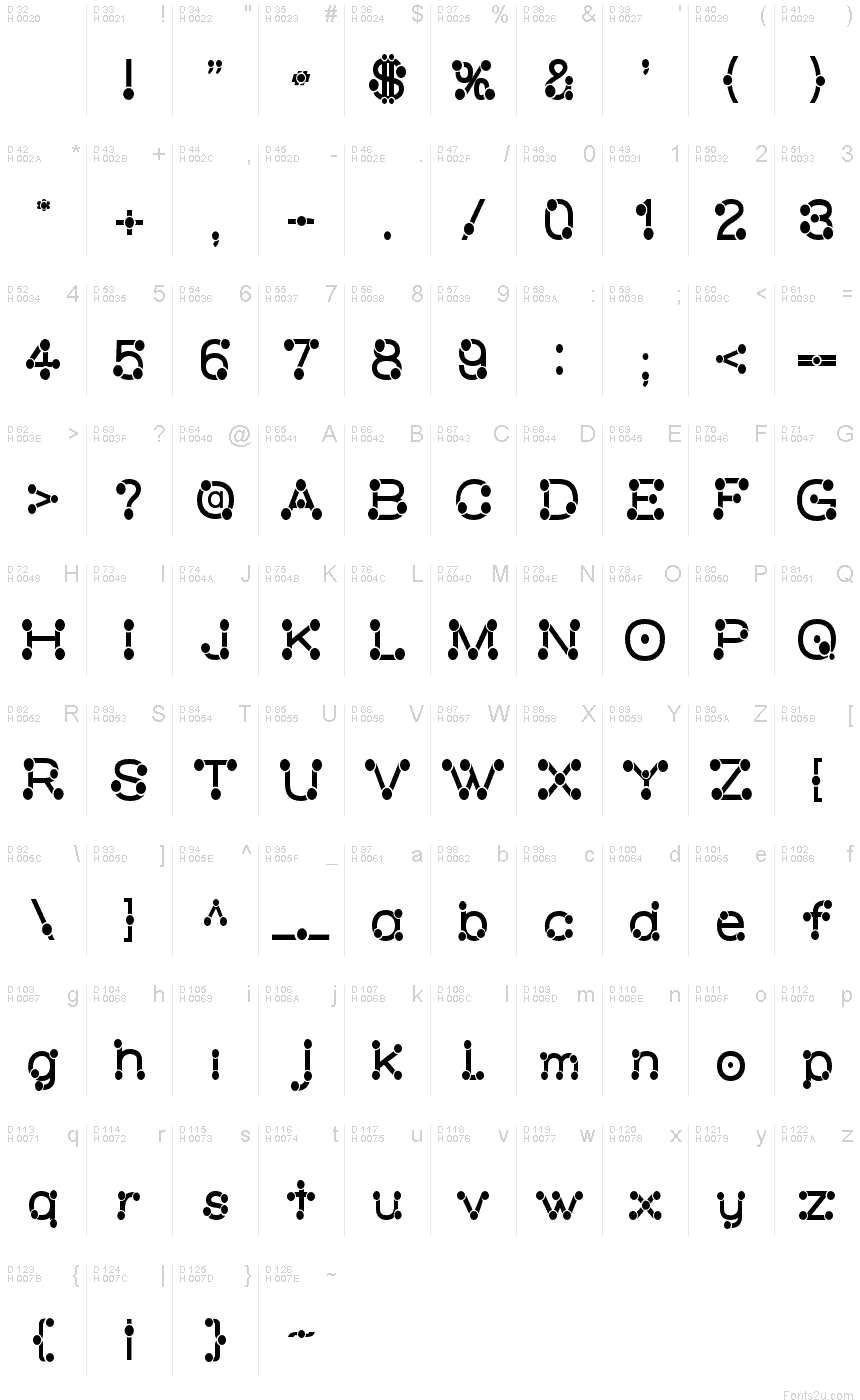
Matchstick by OCADU student Alan Thatcher is a free decorative display font built around thick geometric strokes and round joint-like dots. Each letter turns the repeated bar-and-circle motif into a compact piece of lettering. The forms are playful and mechanical.
The matchstick-like construction connects easily with diagrams and simple geometric illustration, making it useful for children's activity packaging, science event posters, and game graphics. In magazine covers and feature openers, the dotted joints can become part of an illustrated theme rather than serving as neutral type.